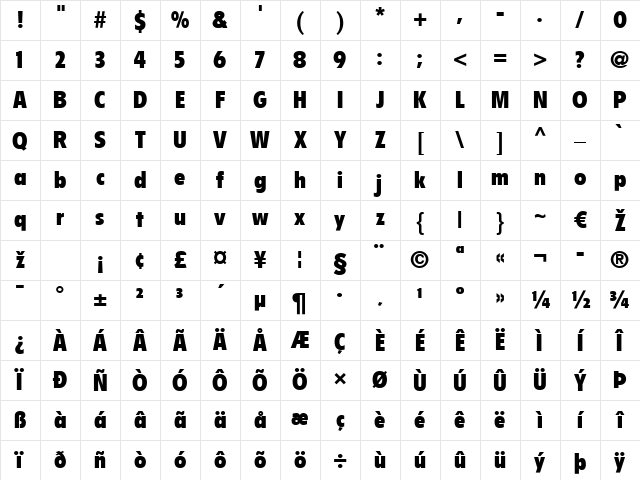
Complete Flyer LT BlackCondensed Regular glyph index. Displaying only characters natively supported by Flyer LT BlackCondensed Regular font.
Flyer LT BlackCondensed is a composed and adaptable typeface that performs quietly and consistently across a wide range of design contexts. Its slender proportions lend an understated elegance to any composition. Its narrow stance lets it pack a punch even in space-constrained designs.